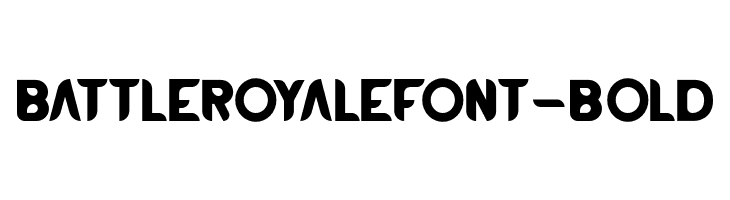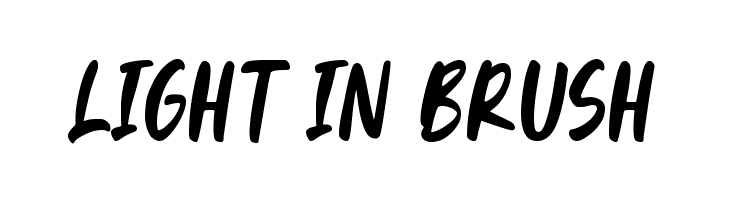
A fluid, handwritten-style font with a personal touch.
A modern geometric sans-serif font with clean lines and uniform stroke widths.
A bold, geometric font with a modern and robust style.
A modern set of clean, bold pictograms ideal for digital and print use.
Bold, expressive designs combining typography with illustrative elements for a dynamic, rebellious aesthetic.
Nature-inspired pictogram set with animals and plants in silhouette.
A modern sans-serif font with an italic slant, offering elegance and readability.
A modern, italic sans-serif font with clean lines and excellent legibility.
A playful, informal handwritten font with irregular strokes and a lively feel.
A bold, brush-style font with dynamic, fluid strokes and a lively appearance.